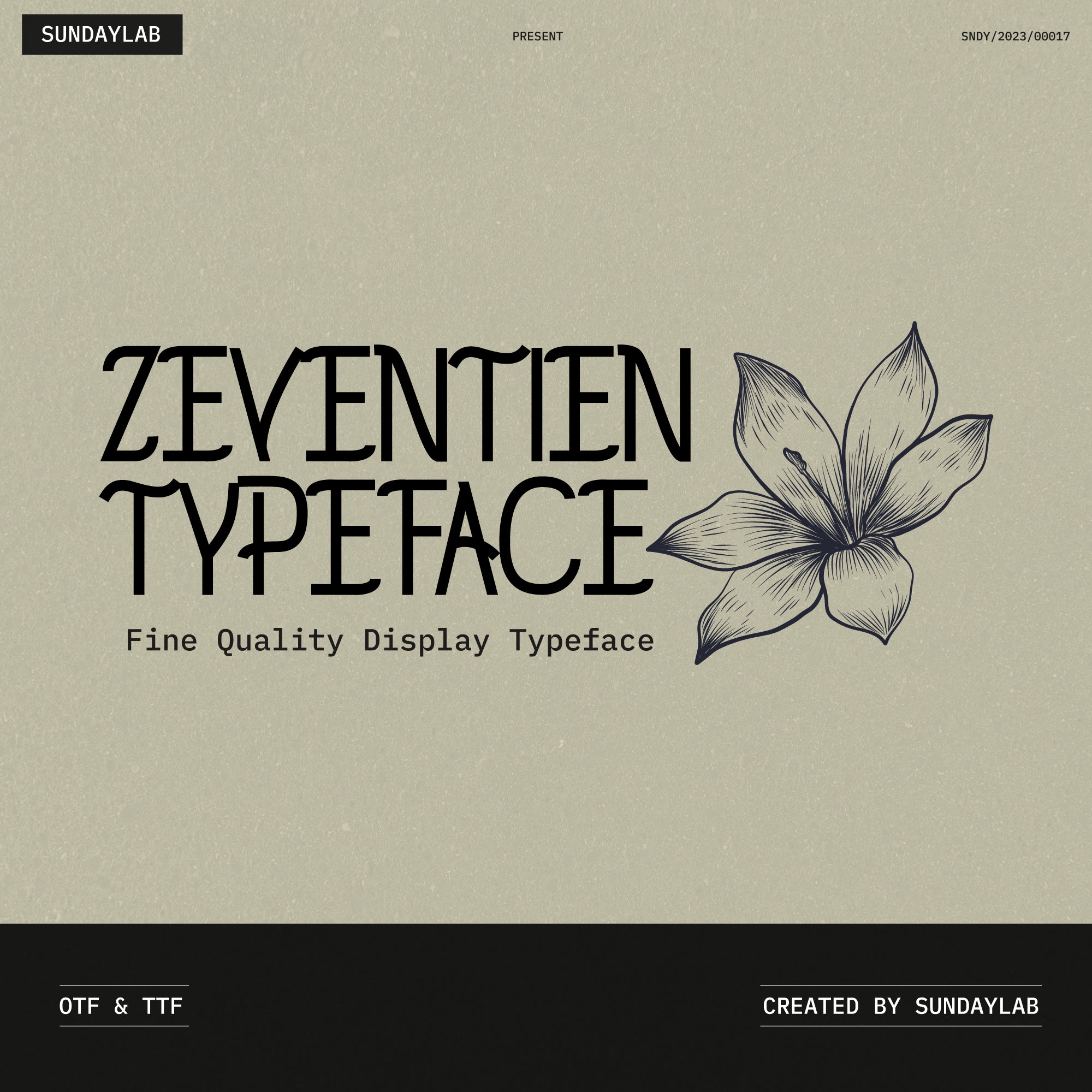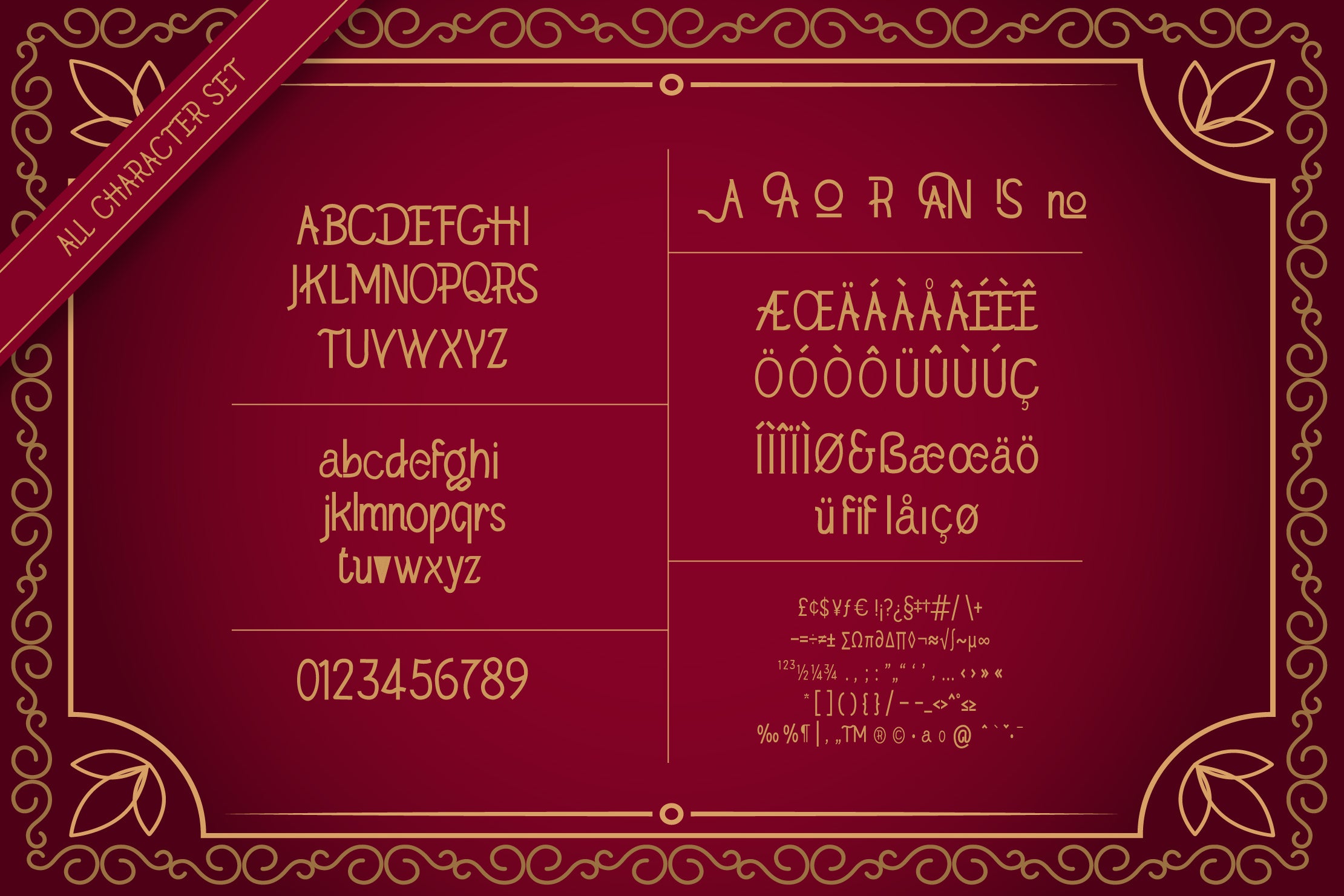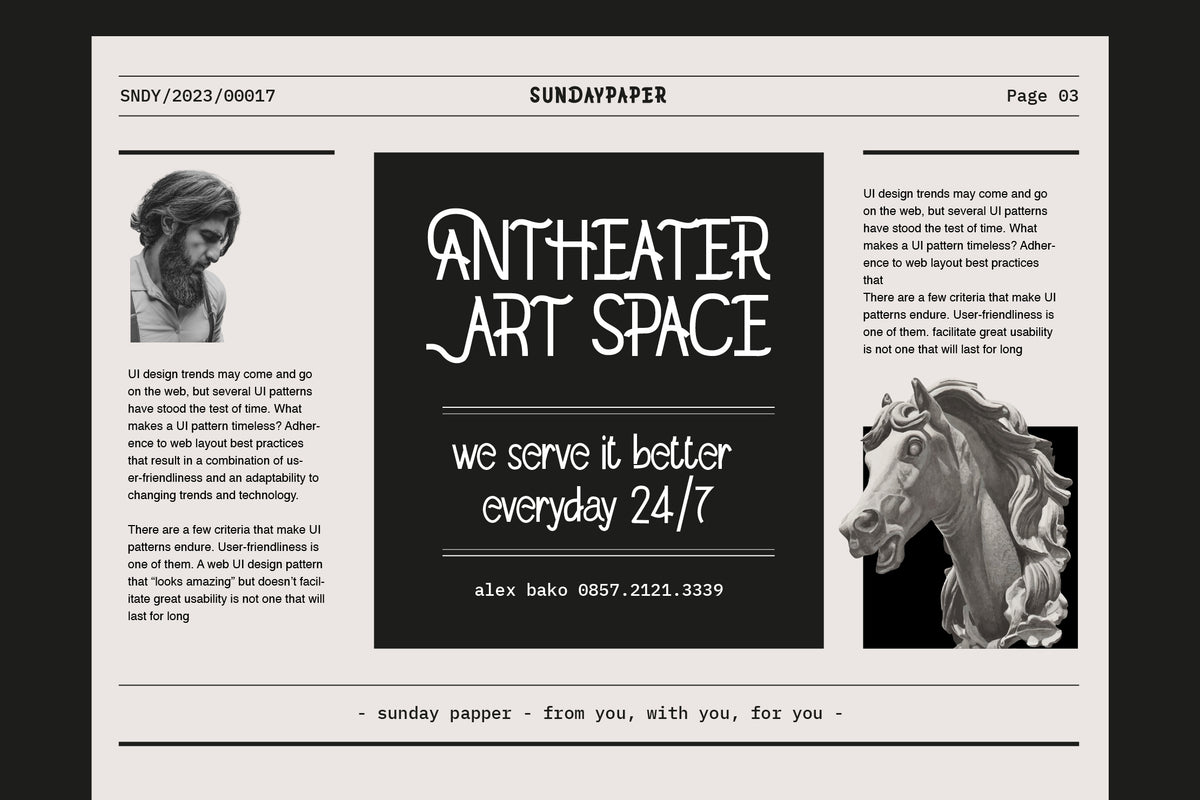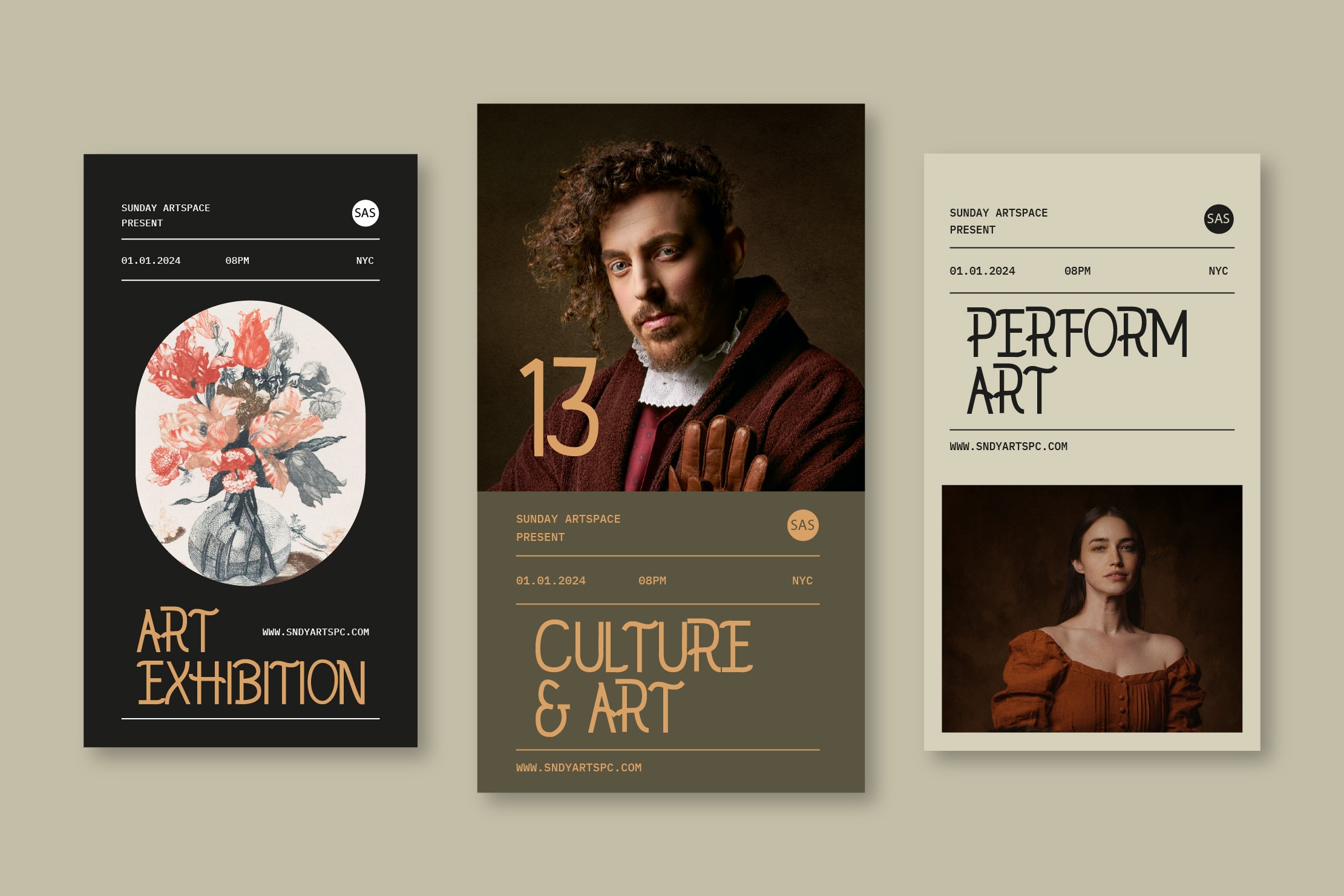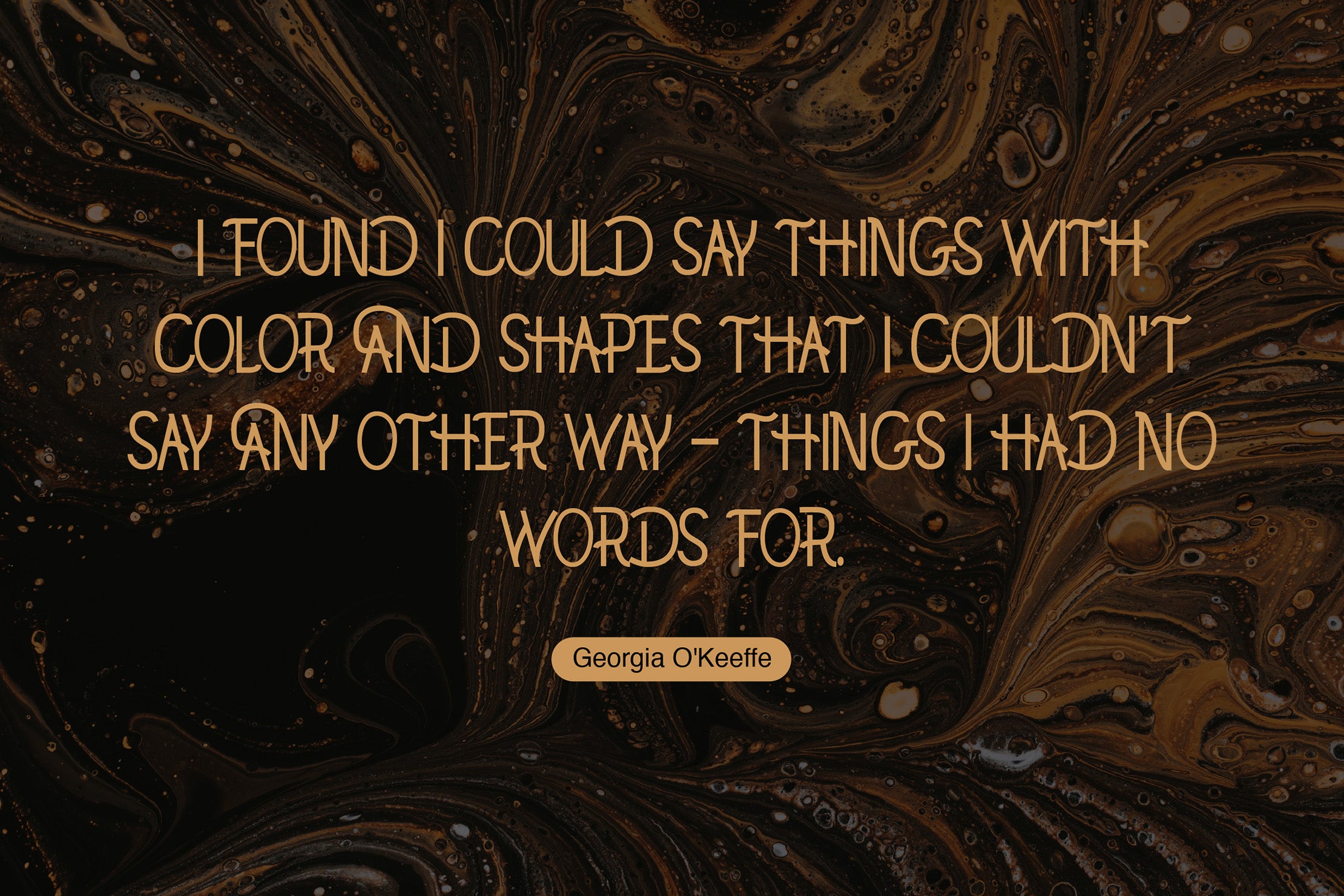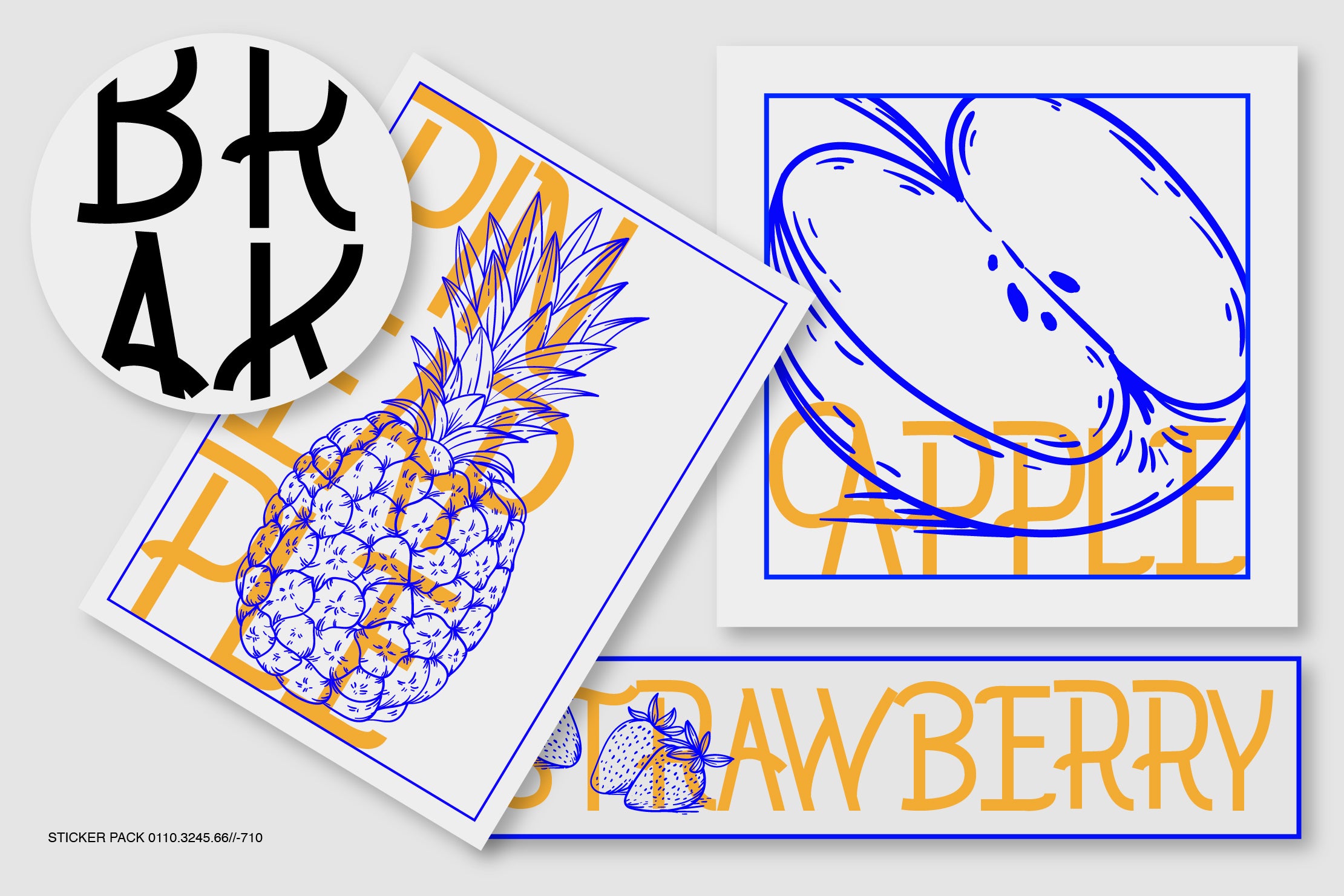
Zeventien Typeface
Zeveten Typeface is an elegant and distinctive display typeface inspired by vintage typography, art deco aesthetics, and contemporary editorial design. Featuring unique letterforms with geometric proportions, refined curves, and decorative details, Zeveten brings a sophisticated yet experimental character to every composition.
Designed primarily for display use, this typeface works beautifully for headlines, branding, logos, posters, editorial layouts, fashion projects, invitations, packaging, album covers, and creative advertising. Its unusual letter construction gives your typography a strong visual identity while maintaining a clean and premium appearance.
Zeveten is especially suitable for projects that require a combination of vintage elegance, artistic expression, luxury aesthetics, and modern graphic design. Whether used in a minimal layout or paired with decorative illustrations and photography, Zeveten can instantly create a memorable and distinctive typographic presence.
The font includes uppercase and lowercase letters, numbers, punctuation, special characters, and alternate characters, giving designers additional flexibility to create unique typographic compositions and expressive headlines.
Zeventien Typeface is a display font featuring geometric proportions, refined curves, and decorative details influenced by vintage typography and art deco design. The package includes uppercase and lowercase letters, numbers, punctuation, special characters, and alternate characters, provided in .otf and .ttf formats with a Read Me file.